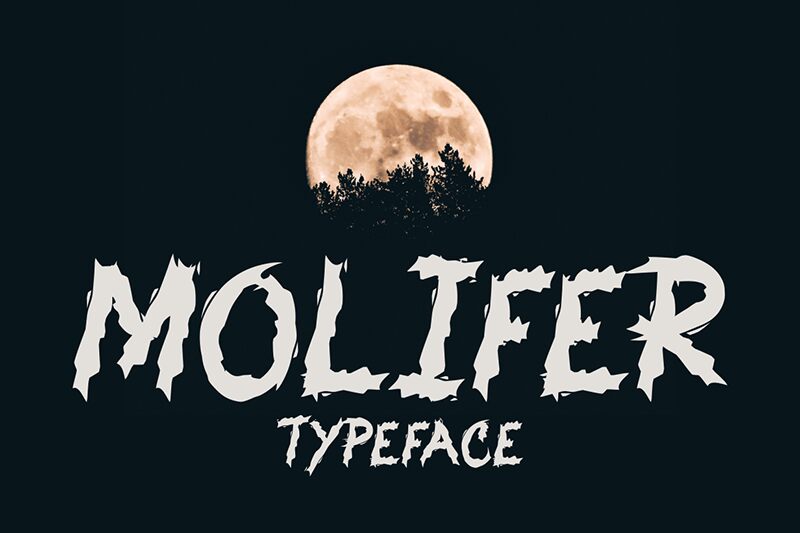
Molifer
Molifer font by Gilang Ternadho is a free Halloween display font. Its jagged, torn strokes and inky, clawed edges feel like letters ripped from a haunted doorway—high-contrast, slightly irregular, and packed with eerie energy. The chunky forms hit hard at larger sizes, giving headlines a gritty, scratch-on-wood texture that reads fast yet feels deliciously unsettling.
Using Molifer, your spooky concepts snap into focus: haunted house posters, party invitations, horror thumbnails, stream overlays, escape room branding, and seasonal event signage all benefit from its wild rhythm. This free font shines as a bold headline; pair it with a clean, quiet sans for body text and let the screams stay in the title.